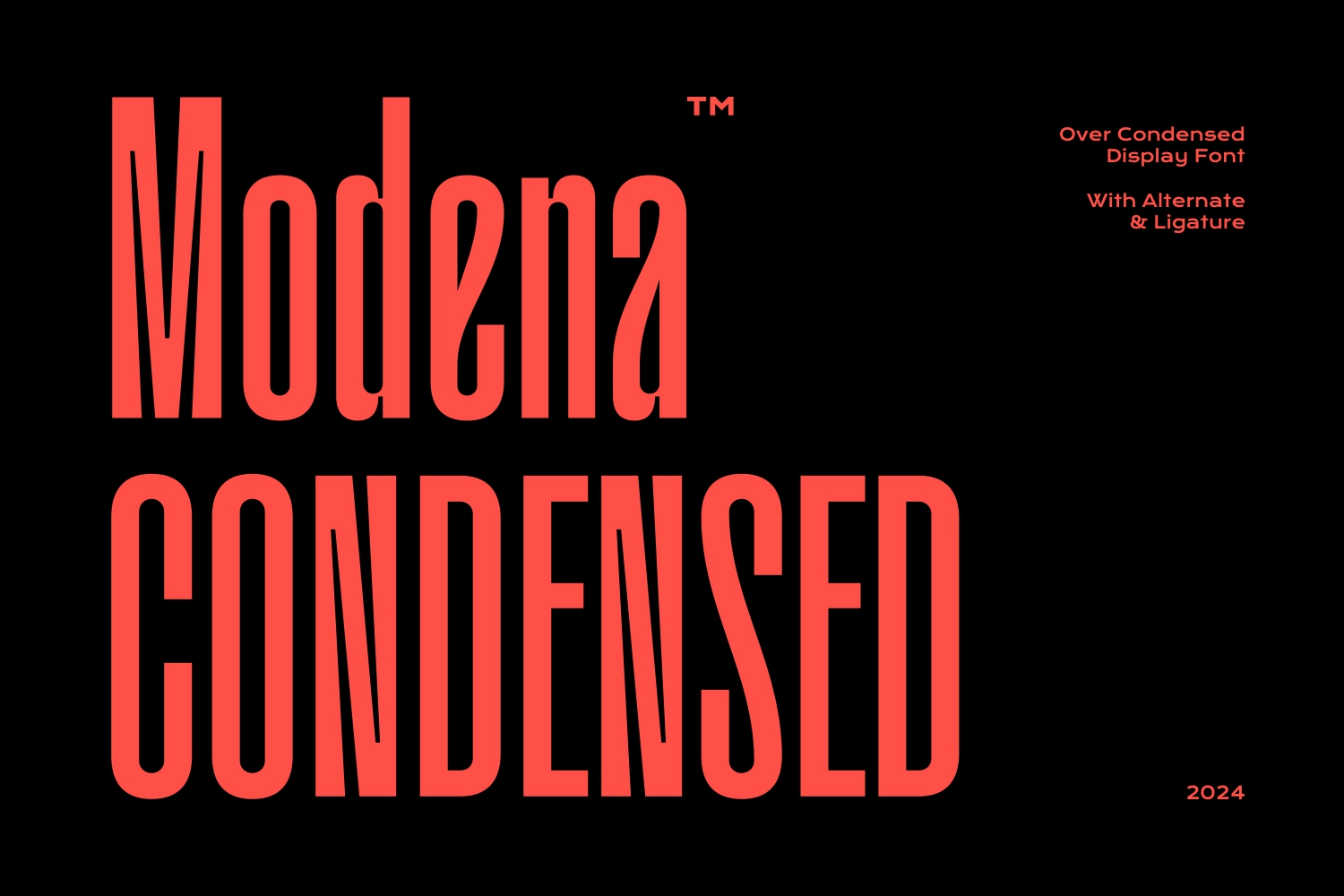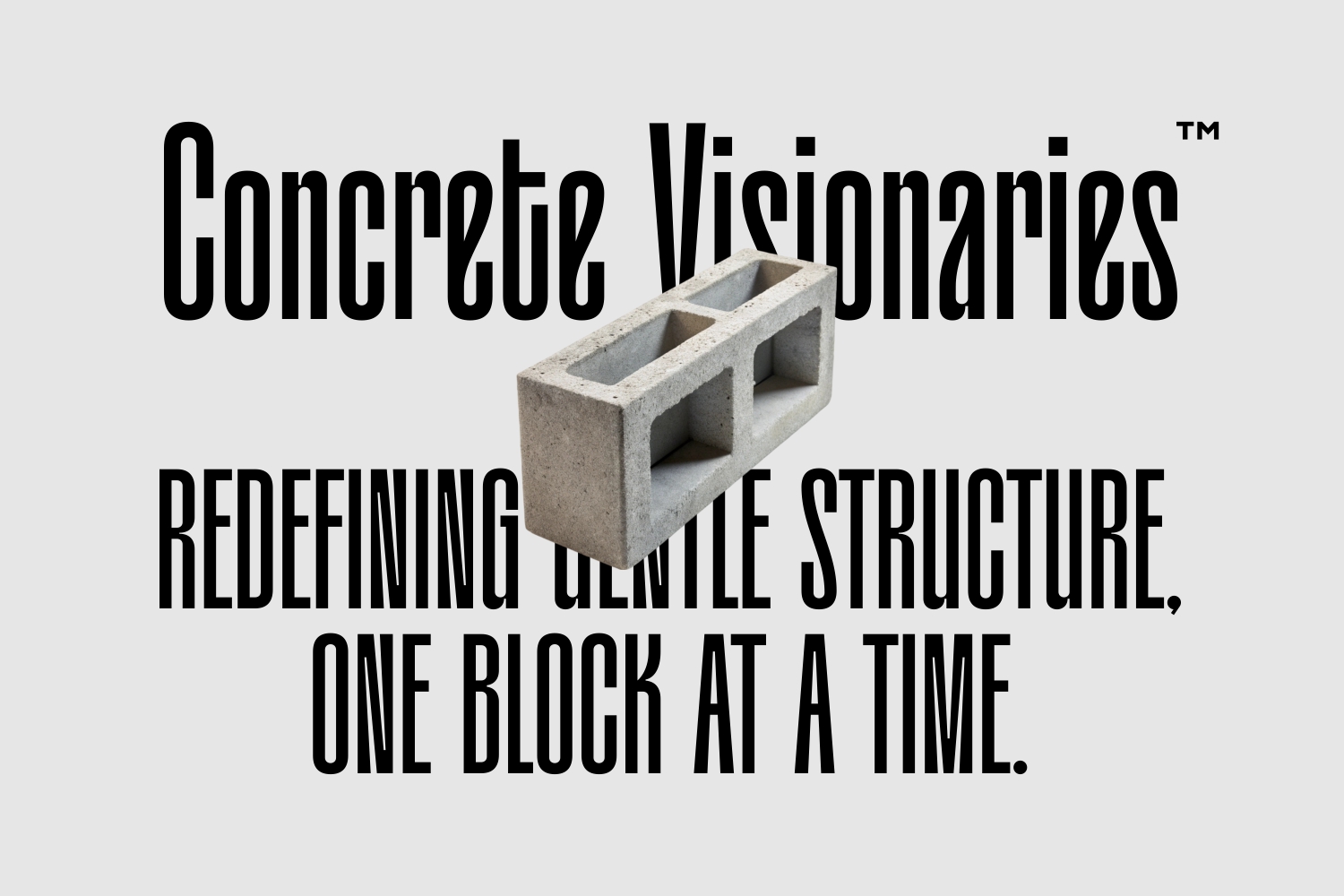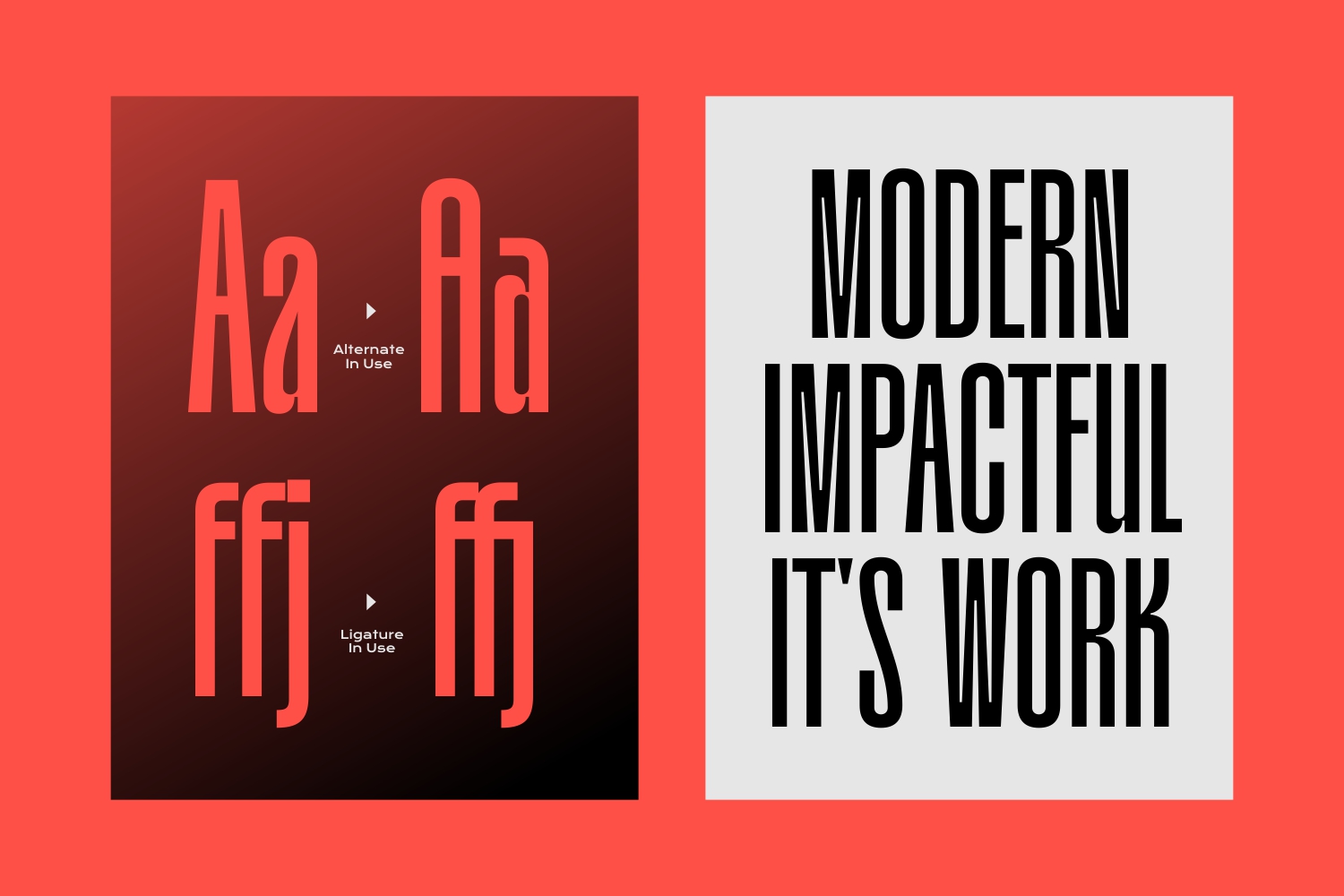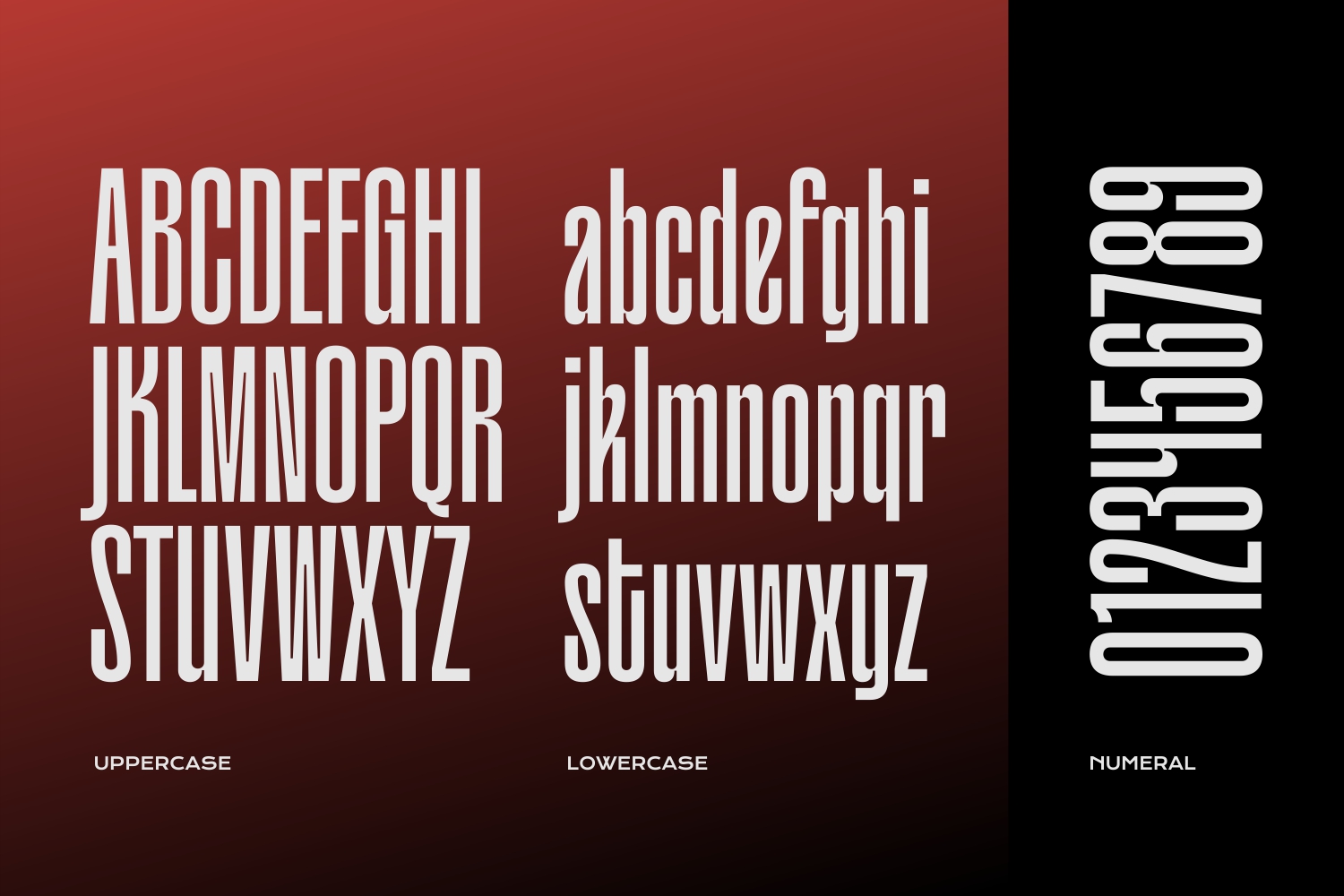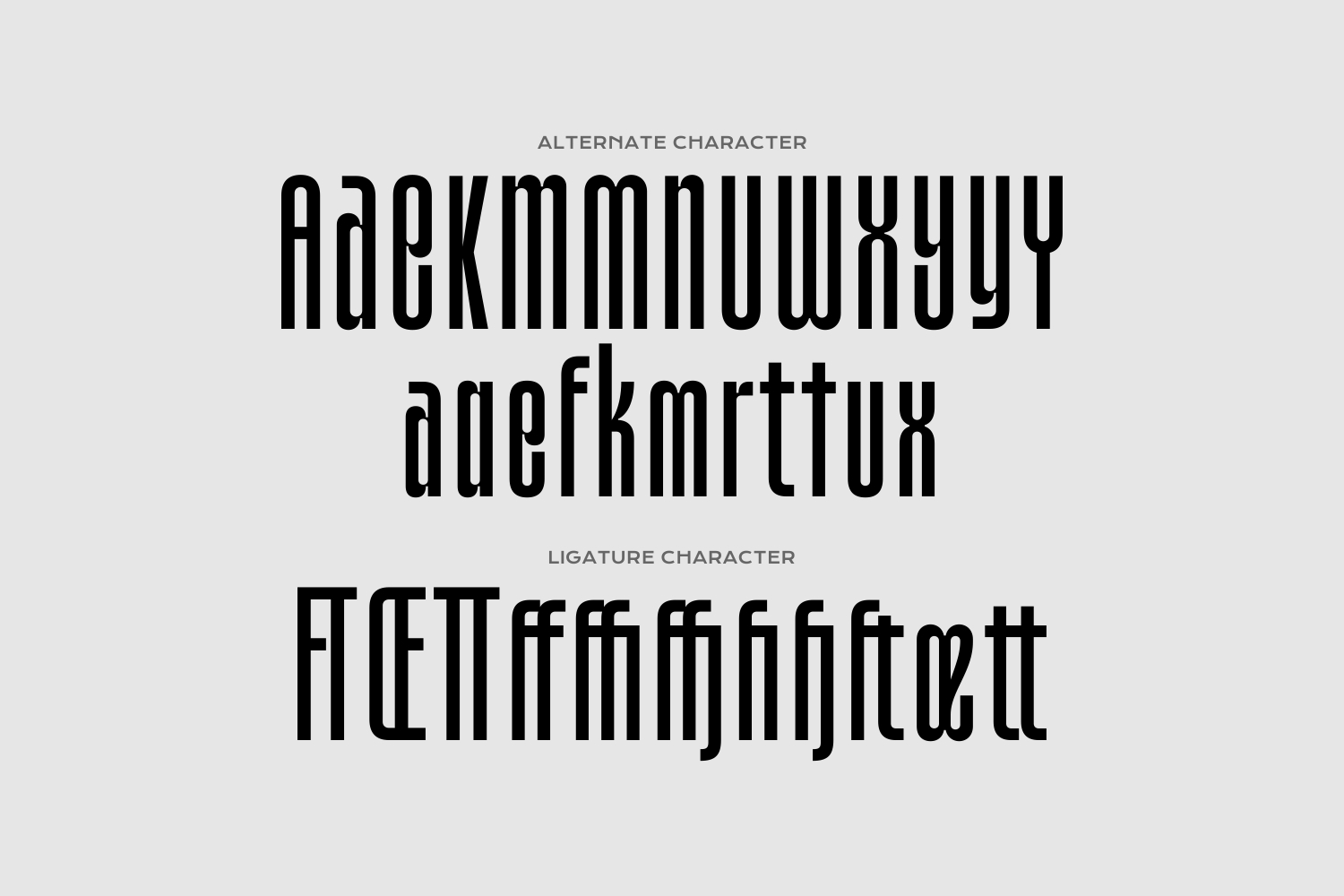
Modena Condensed is a striking over-condensed display font designed for bold, impactful statements. With its tall, narrow proportions and clean geometric structure, it exudes modernity and confidence. Perfect for posters, editorial headlines, branding, and digital media, this typeface demands attention and maximizes space efficiency without sacrificing style.
Equipped with alternate characters and creative ligatures, Modena Condensed allows designers to add unique personality and versatility to their compositions. Whether for minimalist layouts, urban branding, or high-impact advertising, this font delivers a sleek, contemporary edge that ensures every word stands out.